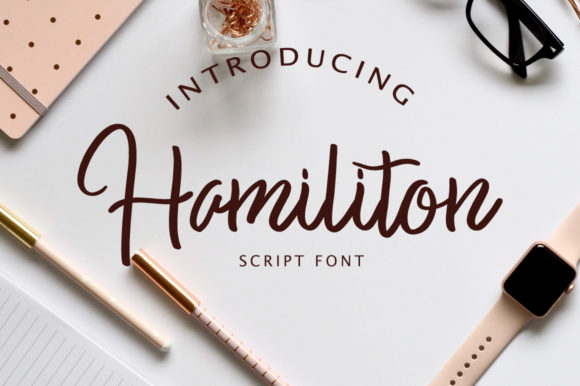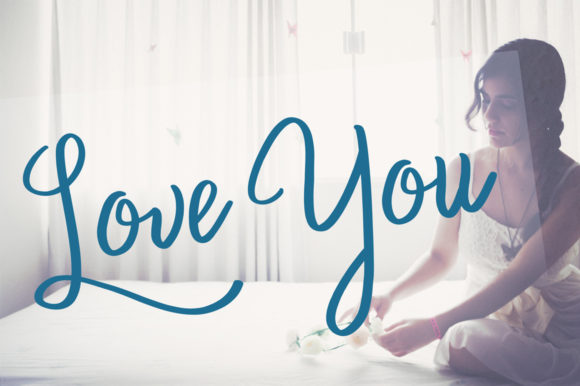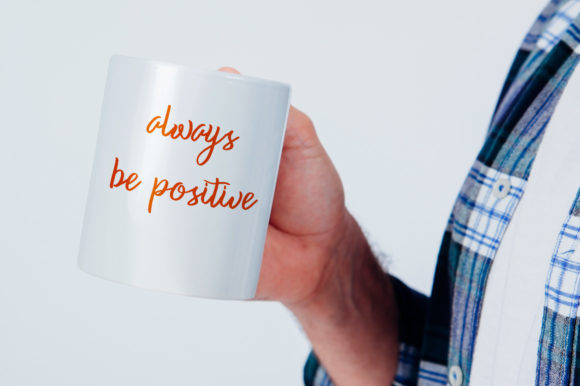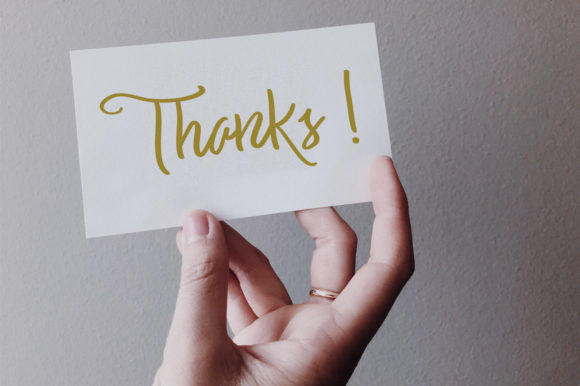
Hamiliton Font
About Hamiliton Font
Hamiliton is a beautiful script with a romantic and delicate touch. It’s great for various purposes such as Magazine, t-shirt, letterhead, posters, Wedding invitation, badges etc.